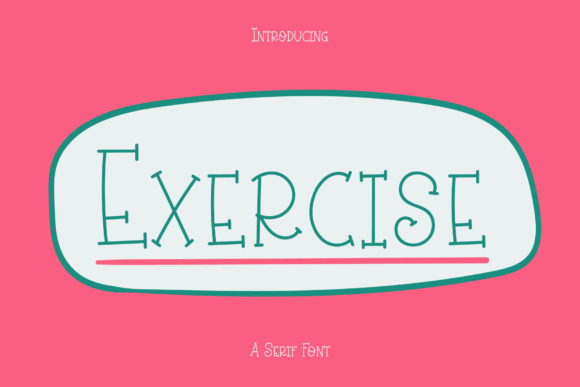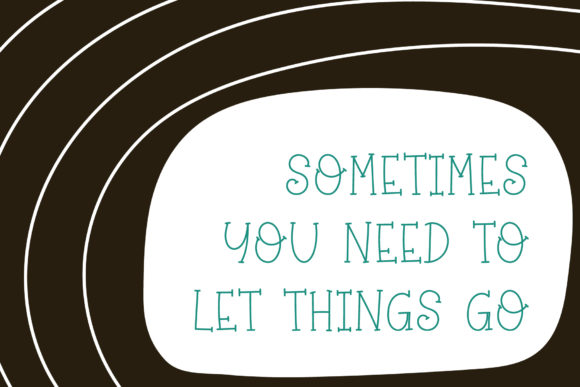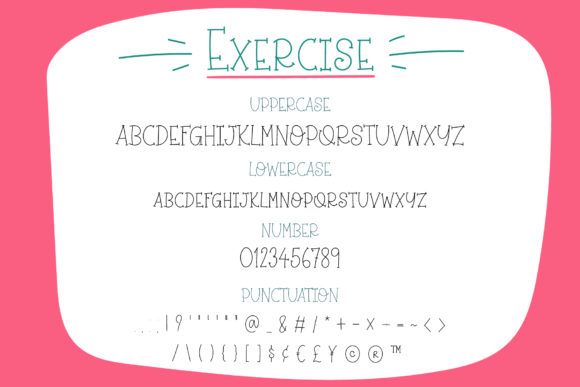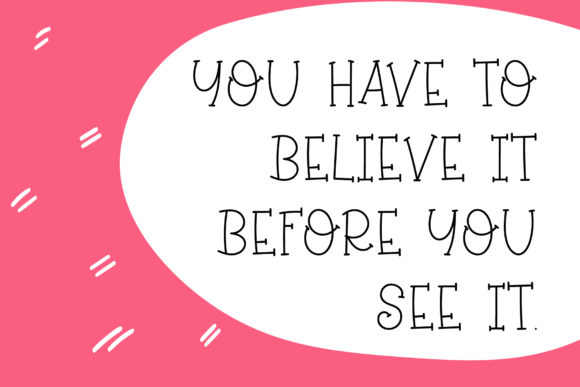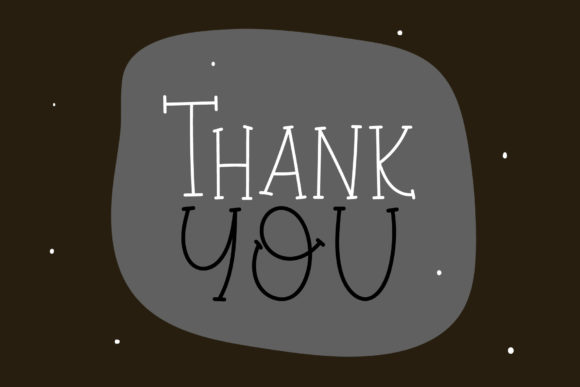
Exercise Font
About Exercise Font
Exercise is a great handwritten font, carefully handcrafted to become a true favorite. Its casual charm makes it appear wonderfully down-to-earth, readable and, ultimately, incredibly versatile. Exercise will look outstanding in any context, whether it’s being used on busy backgrounds or as a standalone headline!